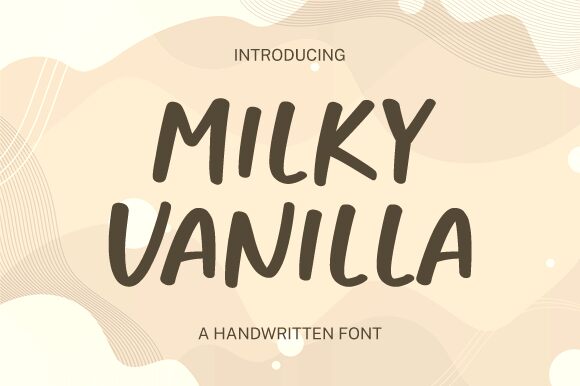
Milky Vanilla
Milky Vanilla, designed by Graphix Line Studio, exudes a charmingly authentic handwritten style that brings a personal touch to any creative endeavor. This font's fluid and natural curves mimic the irregularities of genuine handwriting, making it a perfect choice for projects seeking to convey warmth, friendliness, and an air of casual sophistication. Its aesthetic appeal lies in its ability to strike a balance between readability and artistic flair.
The style of Milky Vanilla is versatile enough for a wide range of applications—from branding materials and logo designs to invitations and personalized merchandise. The font's informal elegance makes it particularly suitable for industries like food and beverage, beauty, or any brand aiming for an intimate connection with its audience.
Whether you're crafting the narrative of a cozy cafe menu or putting together an artisanal product label, Milky Vanilla has the potential to infuse your project with an inviting and approachable vibe that resonates with viewers on a human level.